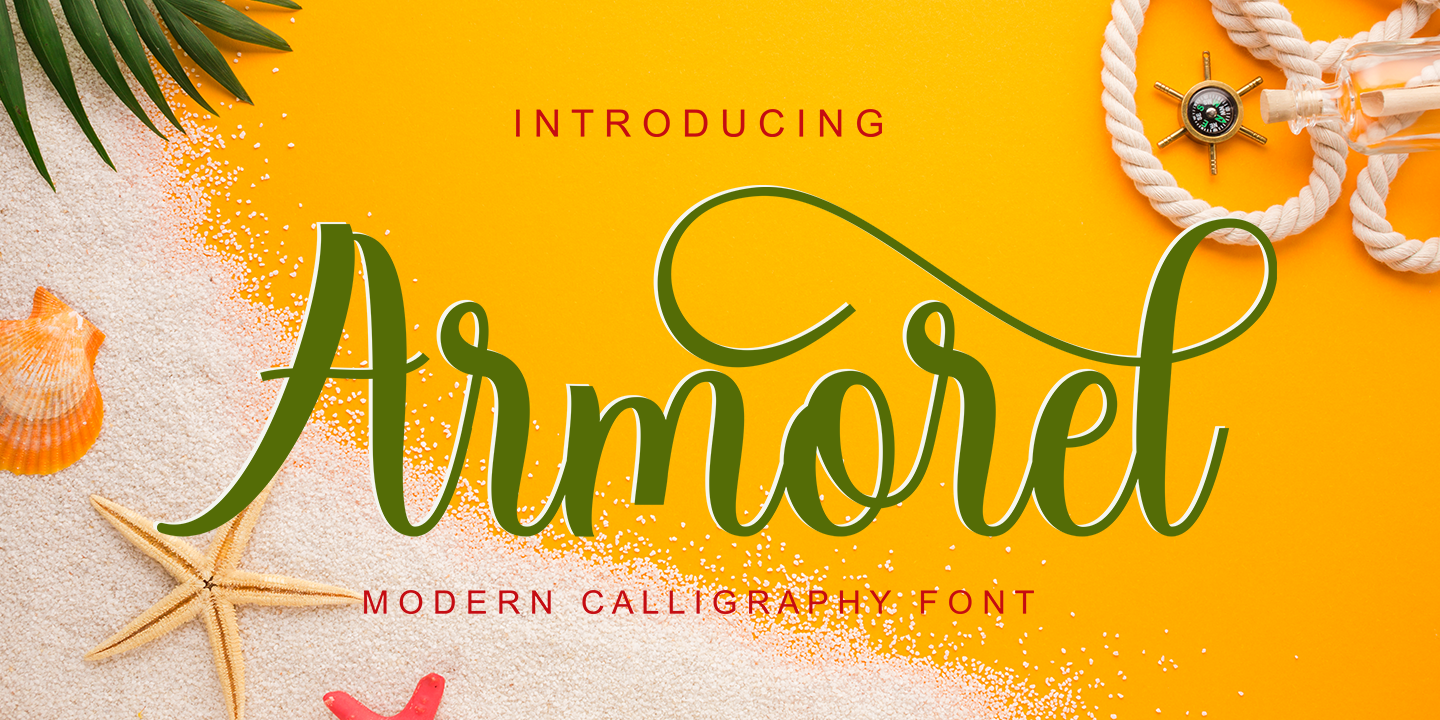
Armorel Script Font Free Download is an elegant and flowing script typeface that combines artistic sophistication with a natural, handwritten feel. With its smooth curves, graceful strokes, and refined character, this font is perfect for branding, invitations, logos, packaging, and any creative project that requires a stylish and personal touch.
The fluid and expressive letterforms of Armorel Script offer excellent readability while maintaining a high-end, sophisticated aesthetic. Whether you are designing for weddings, high-end branding, or luxury product packaging, Armorel Script Font Free Download adds a refined and elegant look to your work.